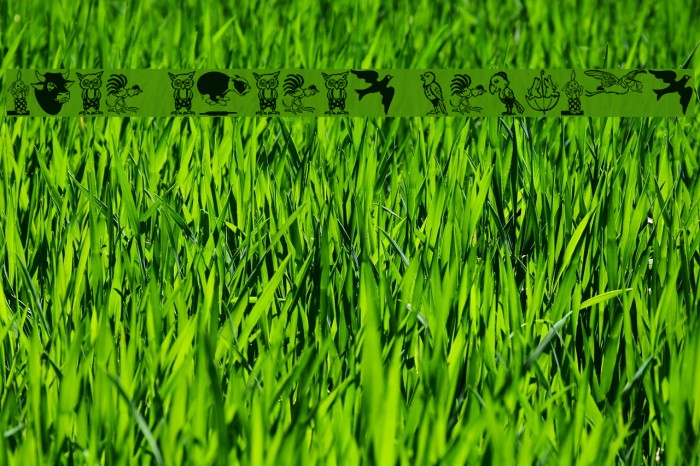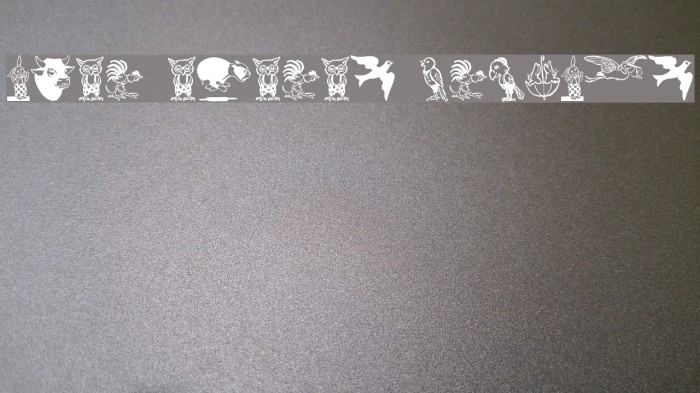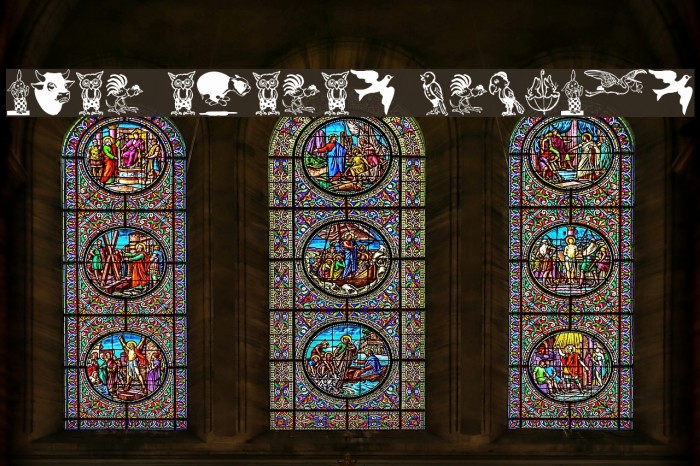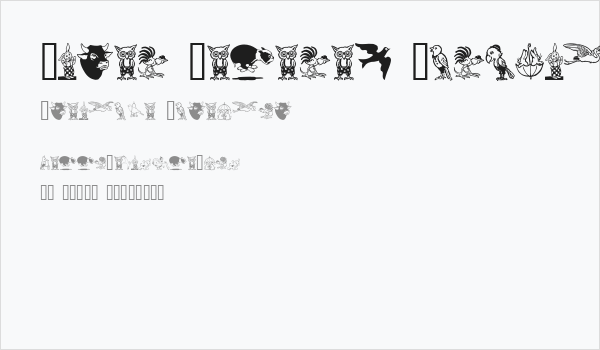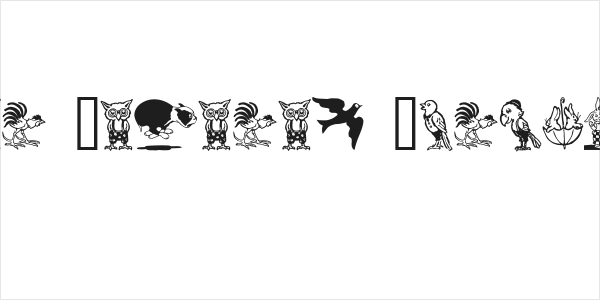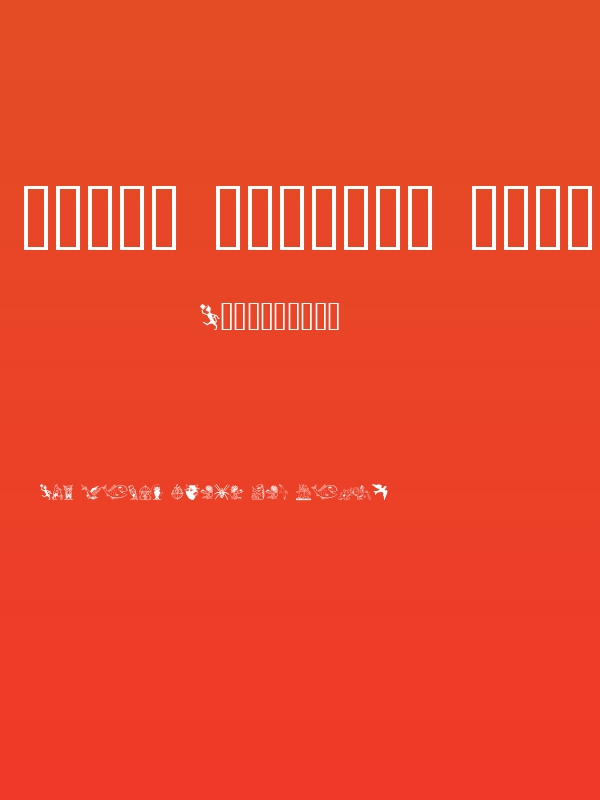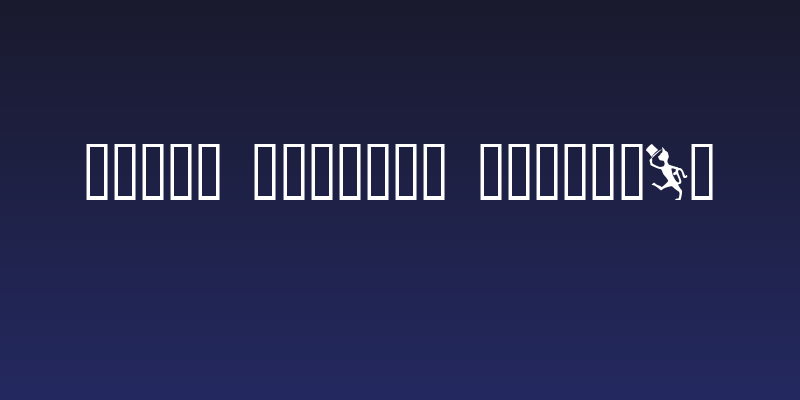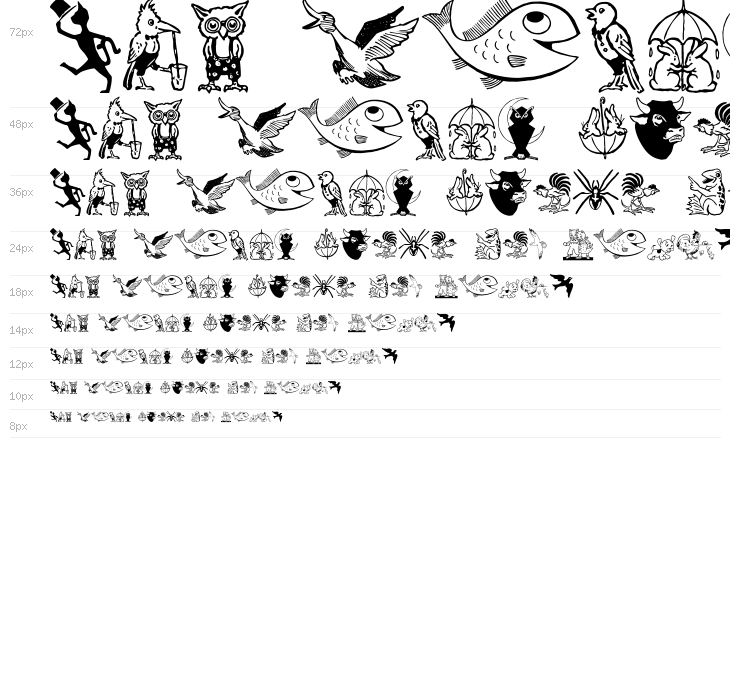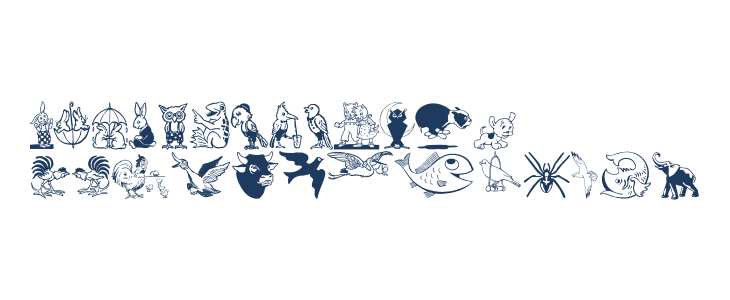
Karen Helenes Dingbats Font
Karen Helenes Dingbats Description
This collection features a whimsical array of dingbats, showcasing a variety of playful and imaginative characters and symbols. Each character is intricately designed, ranging from animals like owls and fish to abstract figures and objects. The style is highly decorative, with a focus on detailed line work and creative expression. These dingbats are perfect for adding a touch of fun and creativity to any project, offering a unique way to incorporate visual elements that stand out. The characters are well-spaced, ensuring clarity and distinction between each symbol.